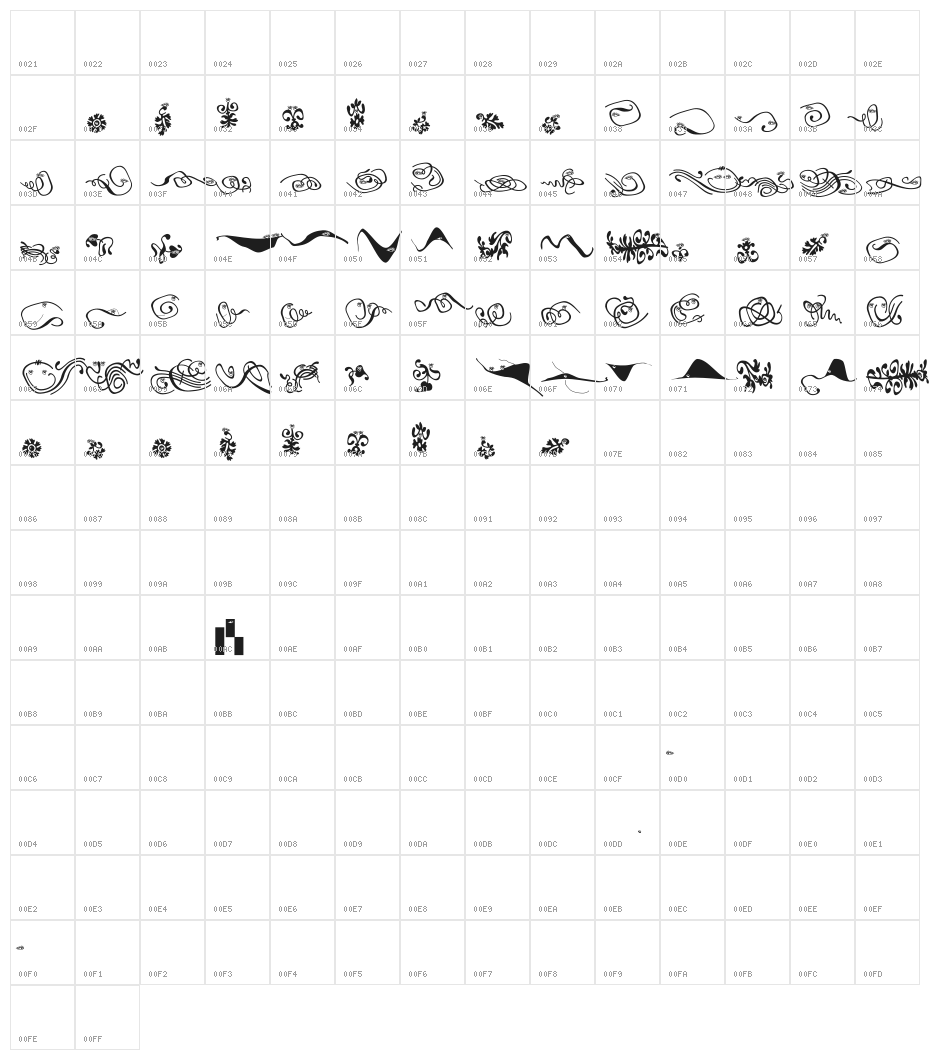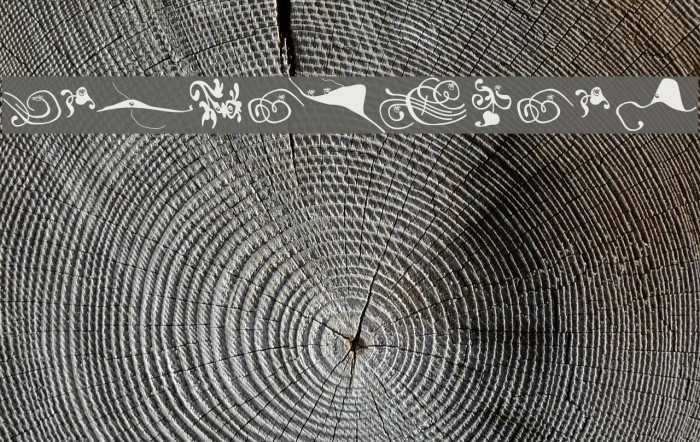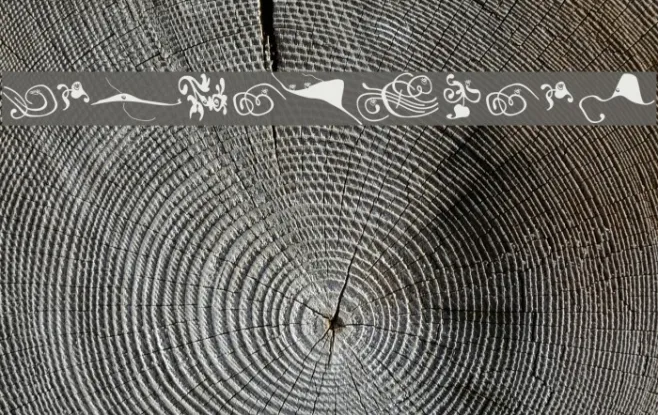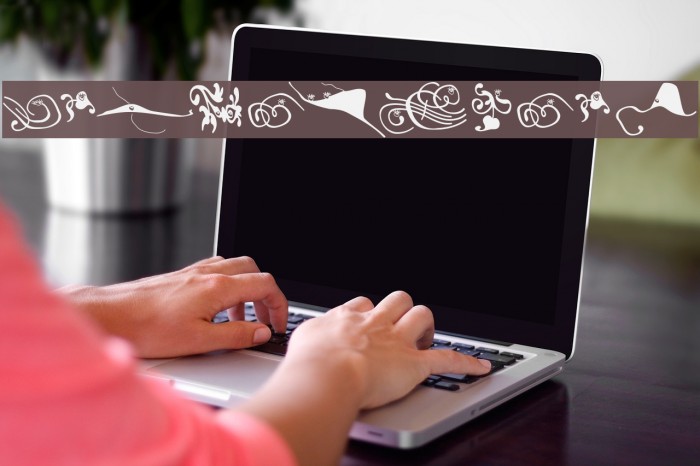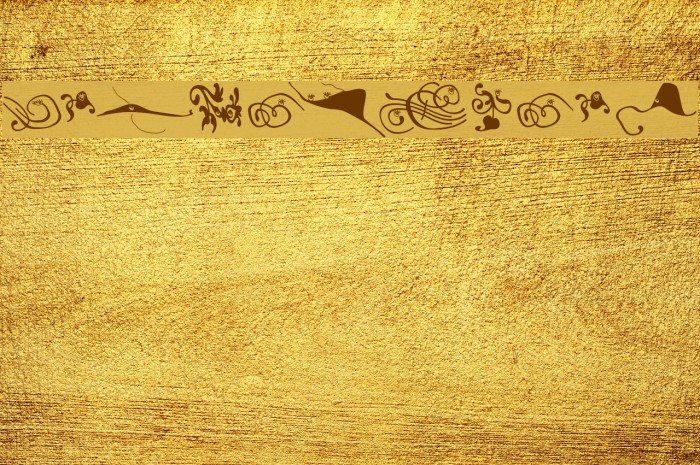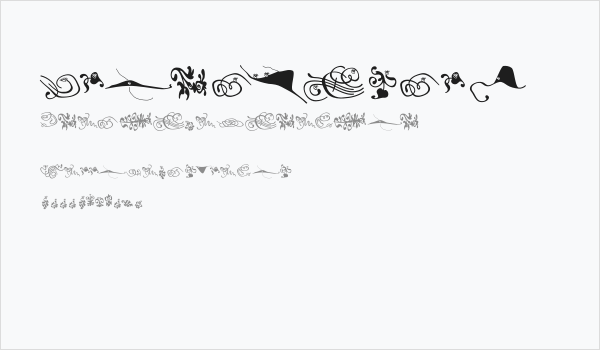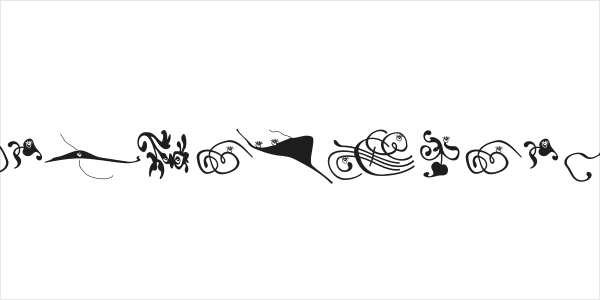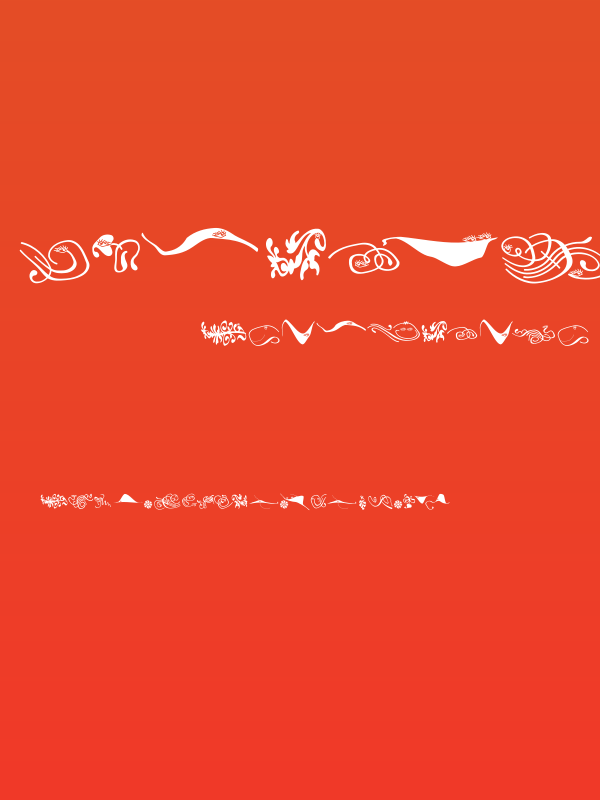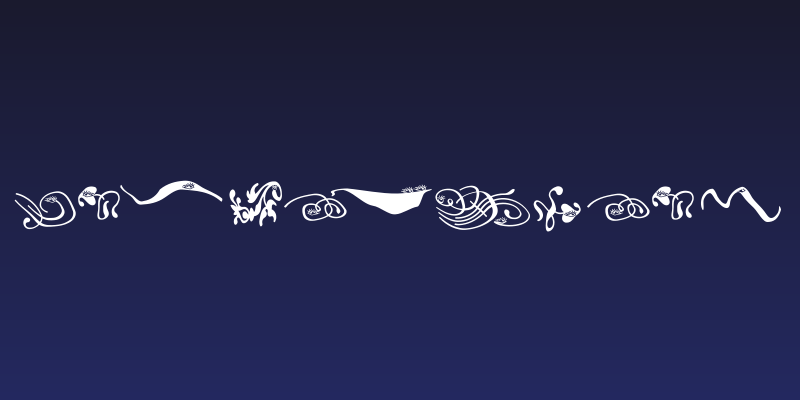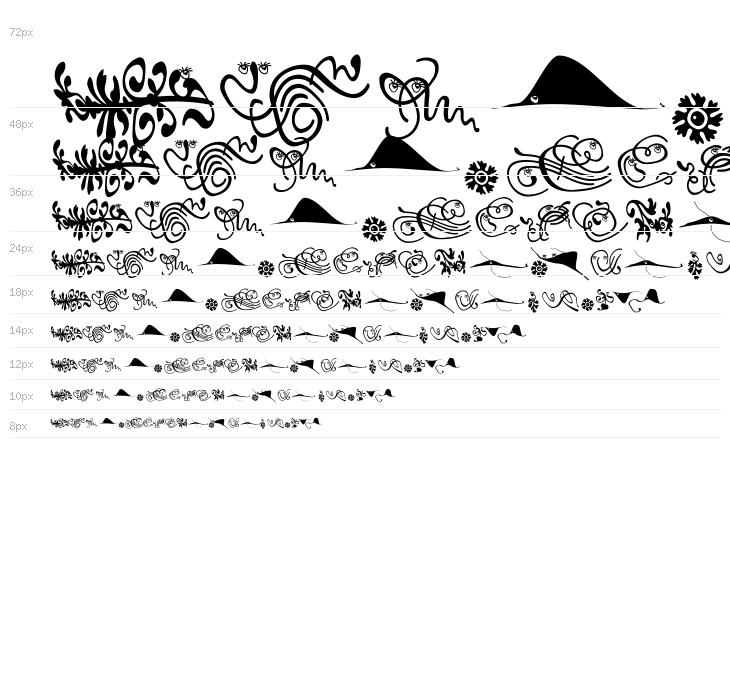
Floranimals Font
Floranimals Description
This decorative font is characterized by its intricate and whimsical design, incorporating floral and animal motifs into each character. The letters are highly stylized, with elaborate swirls and embellishments that give them a unique, artistic flair. The font is not designed for readability in large blocks of text but rather for decorative purposes, where its artistic elements can be appreciated. Each character is a work of art, blending organic shapes with imaginative elements, making it ideal for creative projects that require a touch of elegance and fantasy.
| Use Case | Logos, Invitations, Artistic Designs |
| Proposed Projects | Ideal for wedding invitations, greeting cards, artistic posters, and branding that requires a whimsical and elegant touch. |